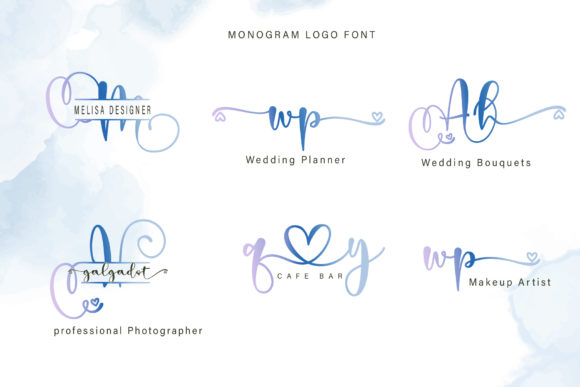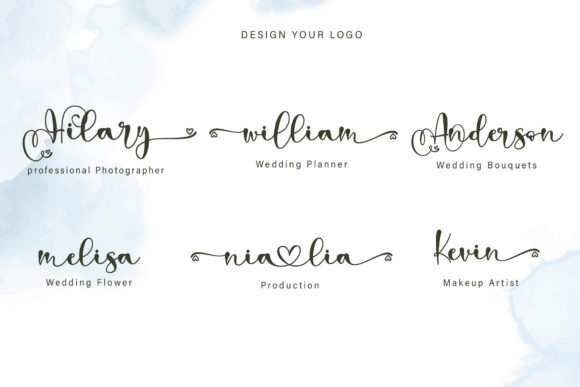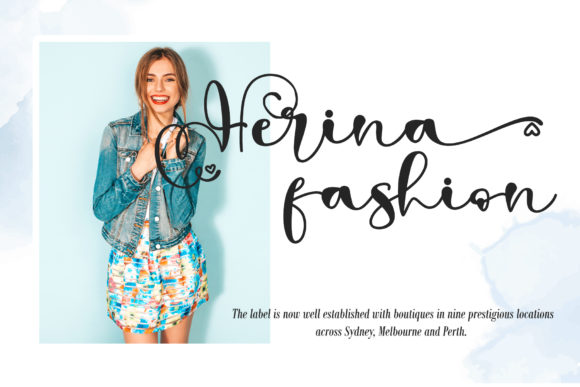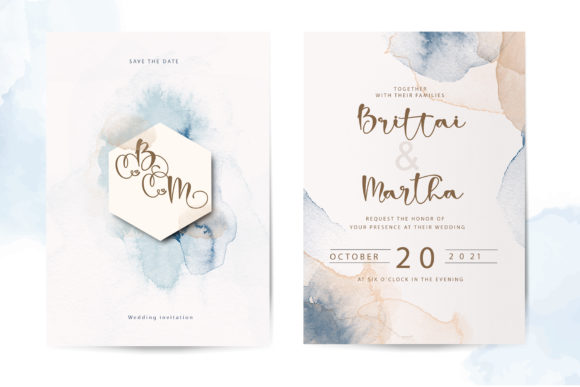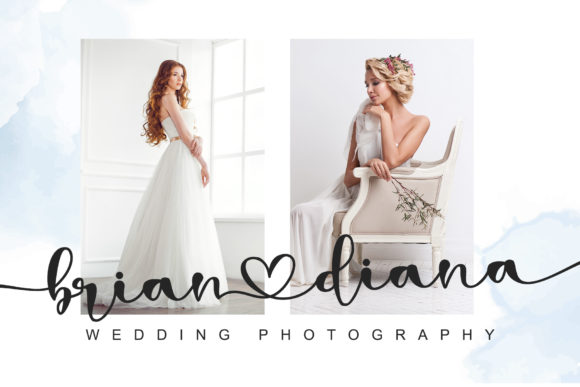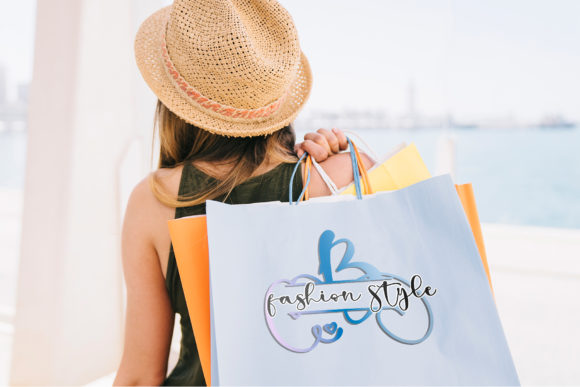
Introducing Dear Darling Font: The Ultimate Romantic Calligraphy Typeface
Are you a designer or crafter looking for a font that exudes romance and sweetness? Look no further than Dear Darling Font, a beautiful calligraphy typeface that is sure to capture the hearts of your audience. With its unique and elegant characters that dance along the baseline, Dear Darling Font is the perfect choice for a variety of design projects.
What is Dear Darling Font?
Dear Darling Font is a romantic and sweet calligraphy typeface that features characters that dance along the baseline, giving it a playful and whimsical feel. This font is perfect for designers and crafters who want to add a touch of elegance and sophistication to their designs. With its beautiful and flowing script, Dear Darling Font is sure to make your designs stand out from the crowd.
Uses of Dear Darling Font
Dear Darling Font is a versatile typeface that can be used for a wide range of design projects, including:
- Logos: Create a beautiful and elegant logo for your business or brand with Dear Darling Font.
- Wedding Invitations: Make your wedding invitations truly special with this romantic and sweet calligraphy typeface.
- Headings: Add a touch of elegance to your headings and titles with Dear Darling Font.
- T-shirts: Create unique and stylish t-shirt designs with this beautiful font.
- Letterhead: Add a touch of sophistication to your letterhead with Dear Darling Font.
- Signage: Create eye-catching signage with this elegant and playful typeface.
- Labels: Make your labels stand out with Dear Darling Font.
- News: Add a touch of elegance to your newspaper or magazine with this beautiful font.
- Posters: Create stunning posters with Dear Darling Font.
- Badges: Design beautiful and eye-catching badges with this romantic and sweet calligraphy typeface.
Features of Dear Darling Font
Dear Darling Font has several features that make it a great choice for designers and crafters, including:
- PUA Encoded: This font is PUA encoded, which means you can access all of the glyphs and swashes with ease.
- Romantic and Sweet: Dear Darling Font has a romantic and sweet feel that is perfect for designs that require a touch of elegance and sophistication.
- Calligraphy Typeface: This font features beautiful and flowing script that is sure to make your designs stand out.
- Characters that Dance along the Baseline: The characters in Dear Darling Font dance along the baseline, giving it a playful and whimsical feel.
Why Choose Dear Darling Font?
There are many reasons why you should choose Dear Darling Font for your design projects, including:
- Elegance and Sophistication: Dear Darling Font adds a touch of elegance and sophistication to any design.
- Versatility: This font can be used for a wide range of design projects, from logos and wedding invitations to headings and t-shirts.
- Easy to Use: Dear Darling Font is PUA encoded, making it easy to access all of the glyphs and swashes.
- Unique and Playful: The characters in Dear Darling Font dance along the baseline, giving it a unique and playful feel.
In conclusion, Dear Darling Font is a beautiful and elegant calligraphy typeface that is perfect for designers and crafters who want to add a touch of romance and sweetness to their designs. With its unique and playful characters, versatility, and ease of use, Dear Darling Font is a great choice for a wide range of design projects. Whether you’re creating logos, wedding invitations, headings, or t-shirts, Dear Darling Font is sure to make your designs stand out from the crowd.